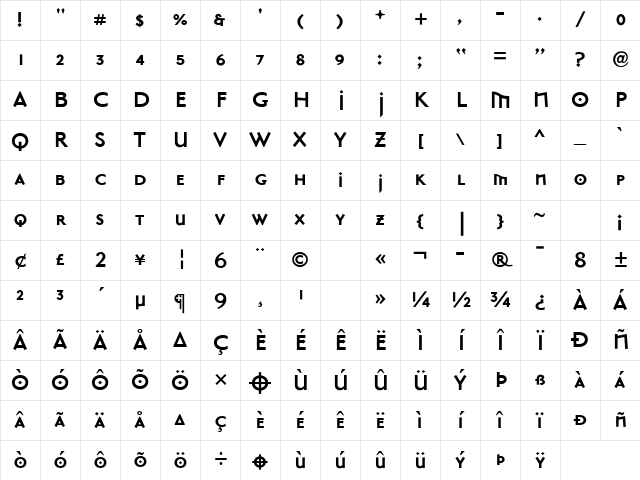
Complete MasonSans Bold glyph index. Displaying only characters natively supported by MasonSans Bold font.
MasonSans is a composed and adaptable typeface that performs quietly and consistently across a wide range of design contexts. Its bold stroke weight gives it real presence on the page.
Who designed the MasonSans Bold font?
This font was published by C) Emigre Graphics; Designed by Jonathan Barnbrook. Check the technical specs section for copyright and designer details.